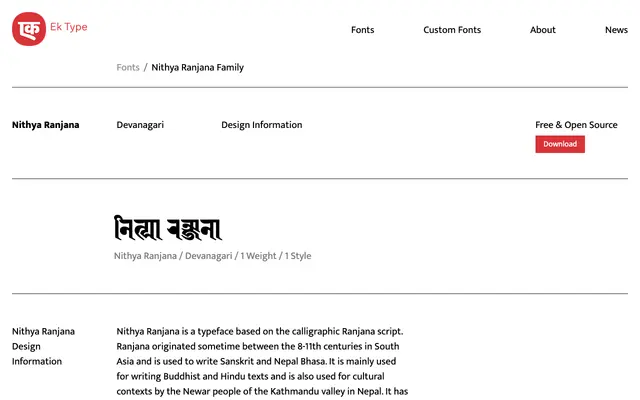
Nithya Ranjana
A digital revival of the Ranjana script, one of South Asia's most complex calligraphic writing systems, offered in both Devanagari and Newa Unicode versions.
Ranjana originated between the 8th and 11th centuries and has been used to write Sanskrit and Nepal Bhasa, particularly in Buddhist and Hindu contexts and among the Newar people of the Kathmandu valley. Despite a rich legacy in manuscript calligraphy, stone inscriptions, wood engravings and paintings, the script had minimal digital representation owing to its structural complexity and limited Unicode support. Nithya Ranjana addresses this gap through two versions: one mapped to Devanagari Unicode (DU) and one to Newa Unicode (NU), making the script accessible for contemporary digital use.
Nithya Ranjana is based on the historical Ranjana calligraphic script, a complex South Asian writing system used for Sanskrit and Nepal Bhasa. Its origins in manuscript calligraphy and stone inscription place it firmly in display and calligraphic script territory rather than a standard text category.